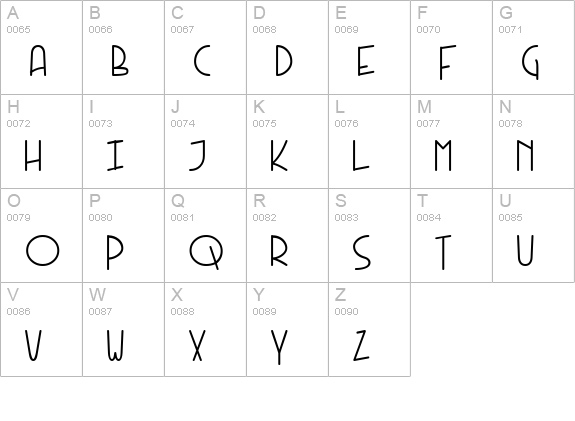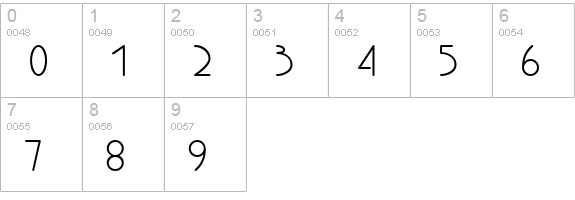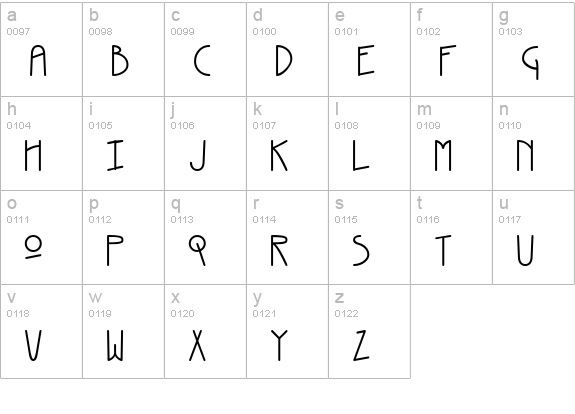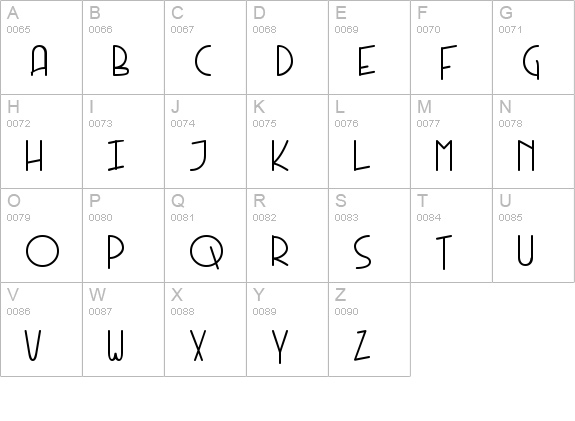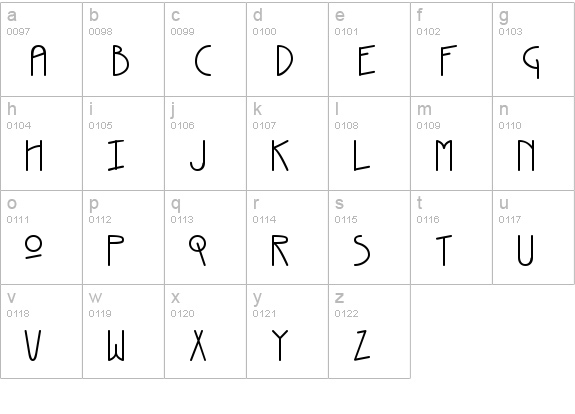
Kneebls Plain font is a stunning display typeface that exudes simplicity and elegance. With its clean and sleek lines, this font is perfect for adding a touch of sophistication to any design project. The beauty of Kneebls Plain lies in its versatility, as it can be used for various purposes such as headlines, logos, posters, and more. Its unique letterforms capture attention effortlessly, making your message stand out from the crowd. What makes Kneebls Plain even more appealing is that it is available for free download at FontsMarket.com. This means that you can easily access and utilize this fantastic font without breaking the bank. Whether you are a professional designer or a beginner, Kneebls Plain font will undoubtedly add a touch of professionalism and style to your work. Its legibility and timeless appeal make it a go-to choice for those looking to create impactful designs. So why wait? Download Kneebls Plain now from FontsMarket.com and unlock the potential of this remarkable font. Let your creativity flow freely with Kneebls Plain, and watch as your designs come to life with elegance and charm.